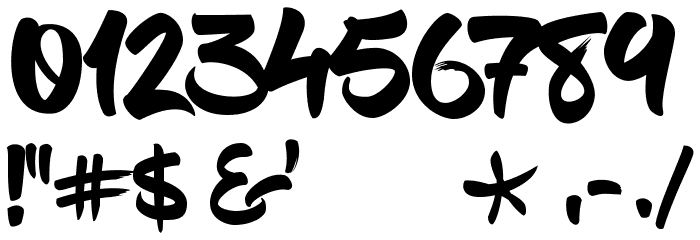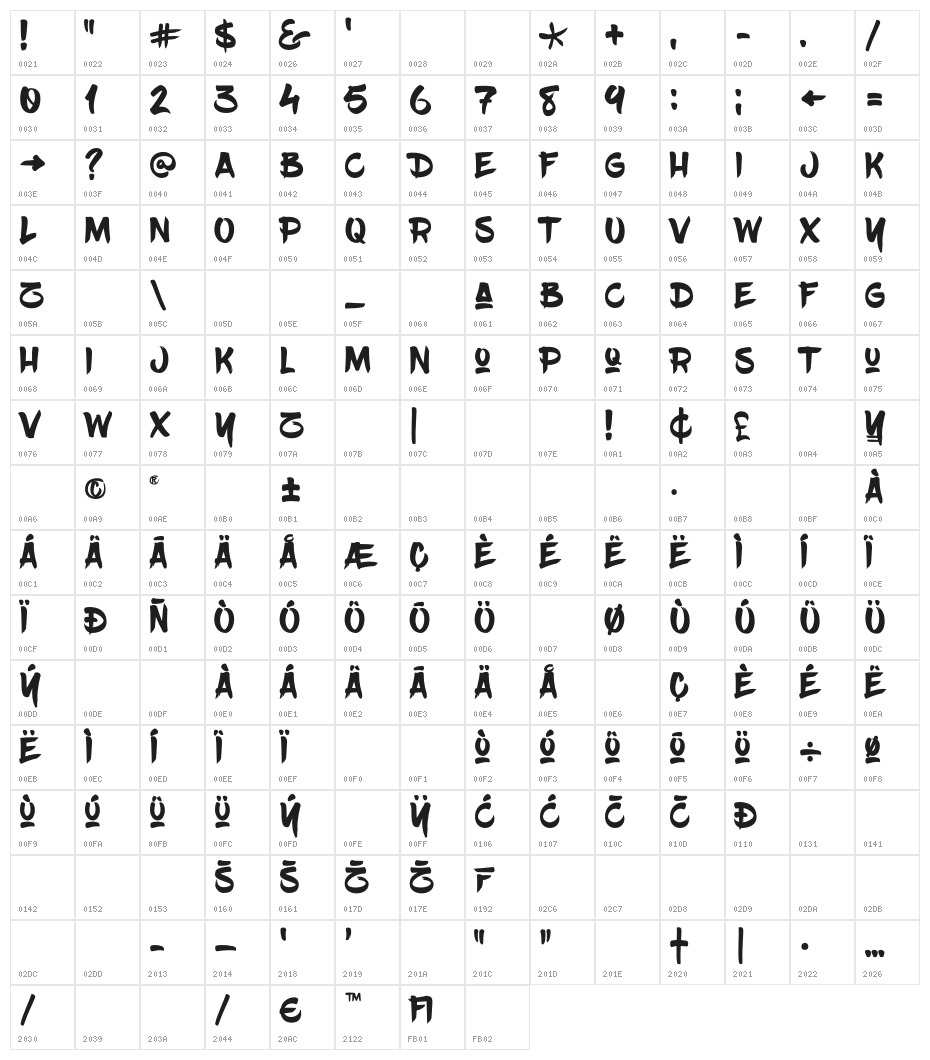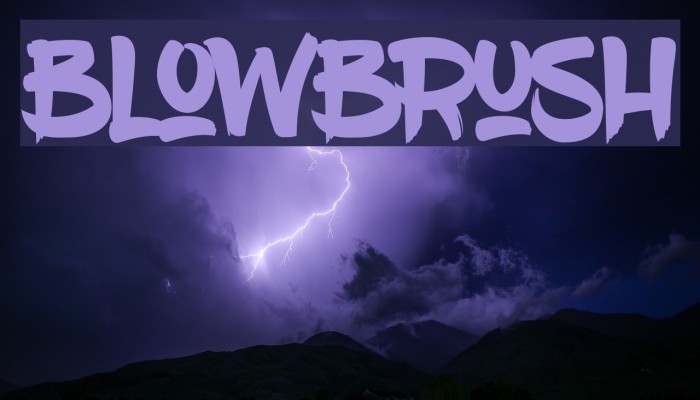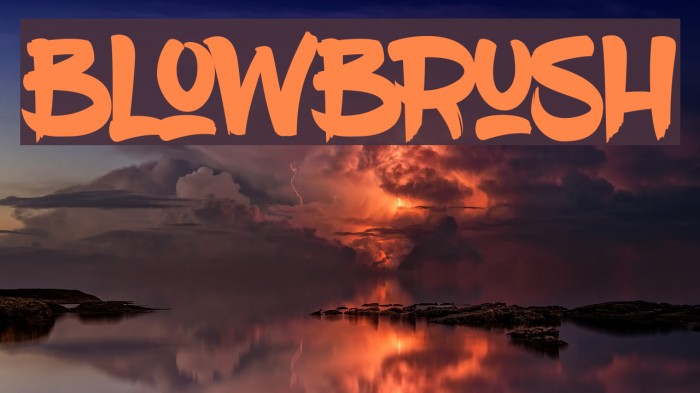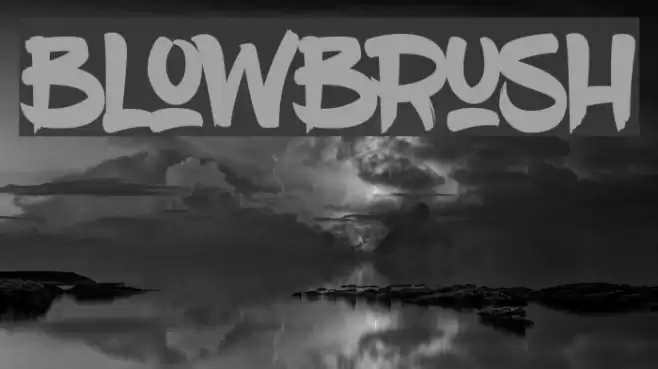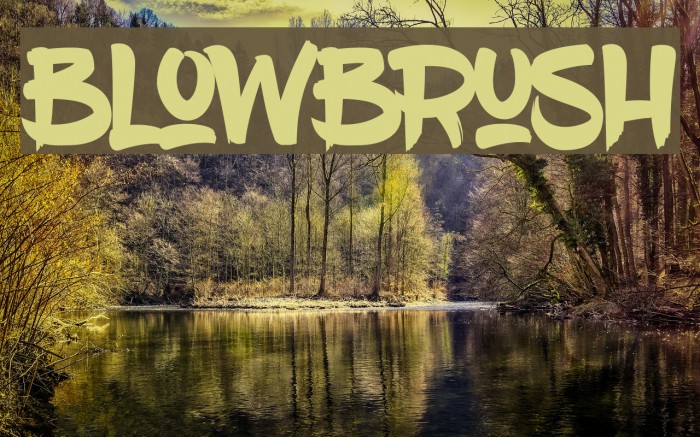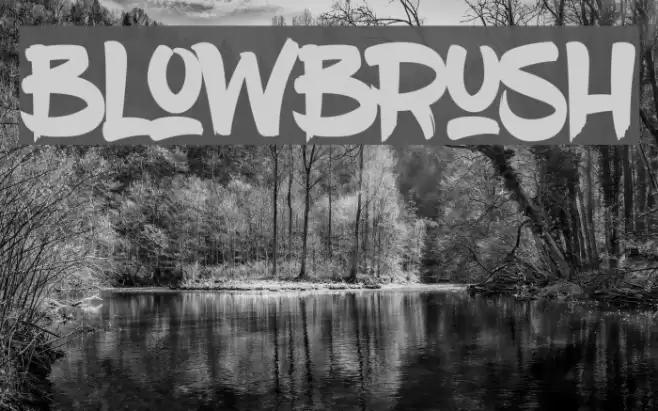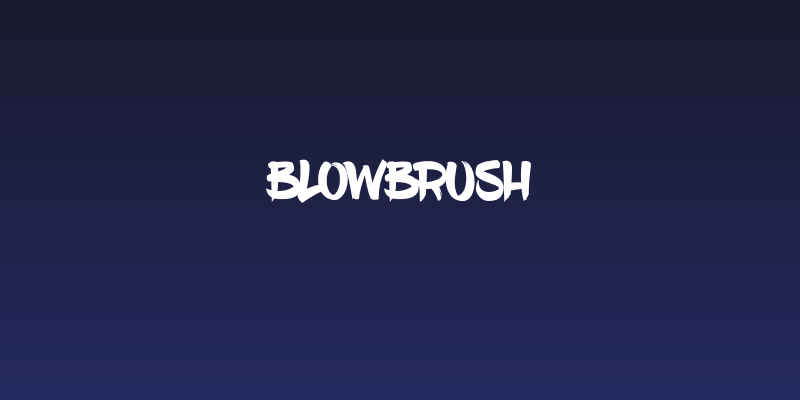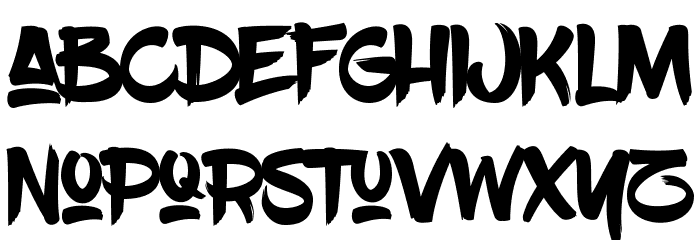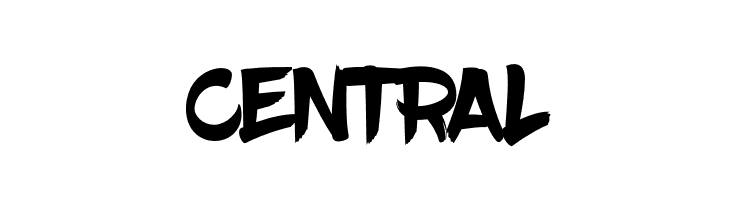
BlowBrush Font
BlowBrush Description
This font exudes a bold, urban aesthetic reminiscent of graffiti art. Its brush-like strokes give it a dynamic and energetic feel, making it stand out with its thick, expressive lines. The characters are designed with a sense of movement and flair, featuring sharp angles and rounded edges that create a sense of rhythm and flow. The uppercase and lowercase letters maintain a consistent style, while the numerals and special characters complement the overall design with their unique, artistic flair. This font is perfect for projects that require a strong, impactful visual presence.
| Proposed Projects | Ideal for street art designs, music album covers, urban-themed posters, and edgy branding projects. |